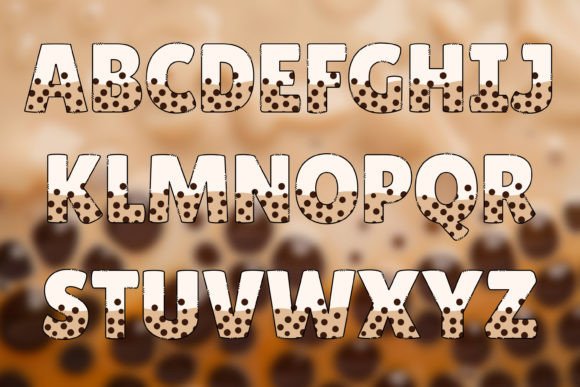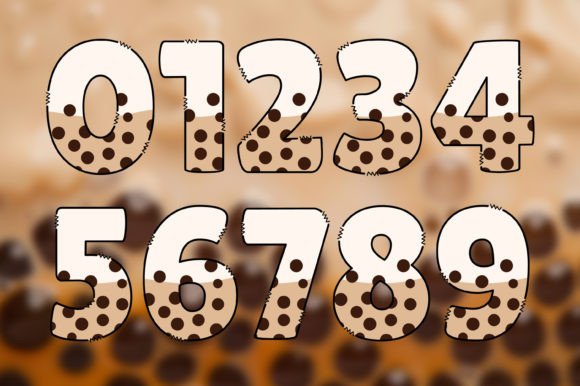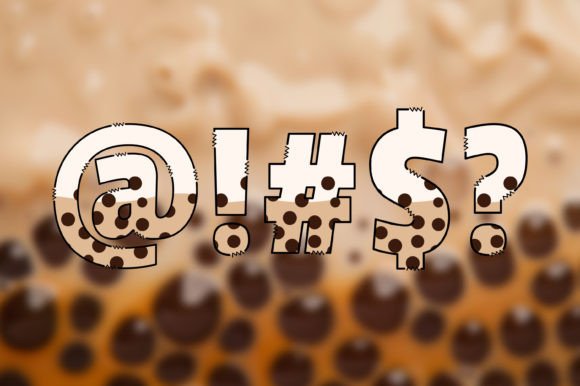
Boba Font: Add a Playful Touch to Your Creative Projects
Are you looking for a font that can add a playful or artistic feel to your creative projects? Look no further than Boba Font! This cool color font is designed to bring a fun and creative vibe to your designs, and it’s perfect for designers and crafters who want to make their work stand out.
What is Boba Font?
Boba Font is a unique and colorful font that is designed to convey a playful or artistic feel. It’s a digital font that can be used on a variety of platforms, including graphic design software, websites, and social media. The font features a range of colors and styles, making it perfect for adding a pop of color and creativity to your designs.
Characteristics of Boba Font
So, what makes Boba Font so special? Here are some of its key characteristics:
- Playful and Artistic: Boba Font is designed to convey a playful or artistic feel, making it perfect for creative projects.
- Colorful: The font features a range of colors, allowing you to add a pop of color to your designs.
- Versatile: Boba Font can be used on a variety of platforms, including graphic design software, websites, and social media.
Benefits of Using Boba Font
So, why should you use Boba Font in your creative projects? Here are some benefits:
- Adds a Playful Touch: Boba Font adds a playful and artistic feel to your designs, making them more engaging and fun.
- Stand Out from the Crowd: The font’s unique style and colors will help your designs stand out from the crowd.
- Perfect for Creative Projects: Boba Font is perfect for creative projects, such as graphic design, crafting, and digital art.
Inspiration for Using Boba Font
Need some inspiration for using Boba Font? Here are some ideas:
- Social Media Graphics: Use Boba Font to create fun and engaging social media graphics.
- Digital Art: Add a playful touch to your digital art with Boba Font.
- Crafting Projects: Use Boba Font to add a creative touch to your crafting projects, such as scrapbooking and card making.
- Graphic Design: Use Boba Font to add a pop of color and creativity to your graphic design projects.
In conclusion, Boba Font is a cool color font that aims to convey a playful or artistic feel. With its unique style and colors, it’s perfect for adding a pop of creativity to your designs. Whether you’re a designer or crafter, Boba Font is a great addition to your creative toolkit. So why not give it a try and see the results for yourself?